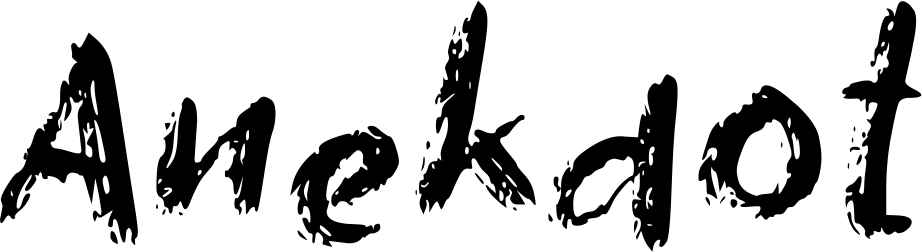
A Anekdot Font
The design you are visualizing can be created by selecting A Anekdot, which has fascinating characters! This particular school font has an eroded style and it also has a natural look plus it adds a rough dirty feel to your typography. Download to make the impossible with a grunge design.
A Anekdot offers mixed case A to Z alphabets, numbers, and punctuations that are brilliant for many places. You should consider utilizing it for books, school projects, headings, flyers, and promotions.